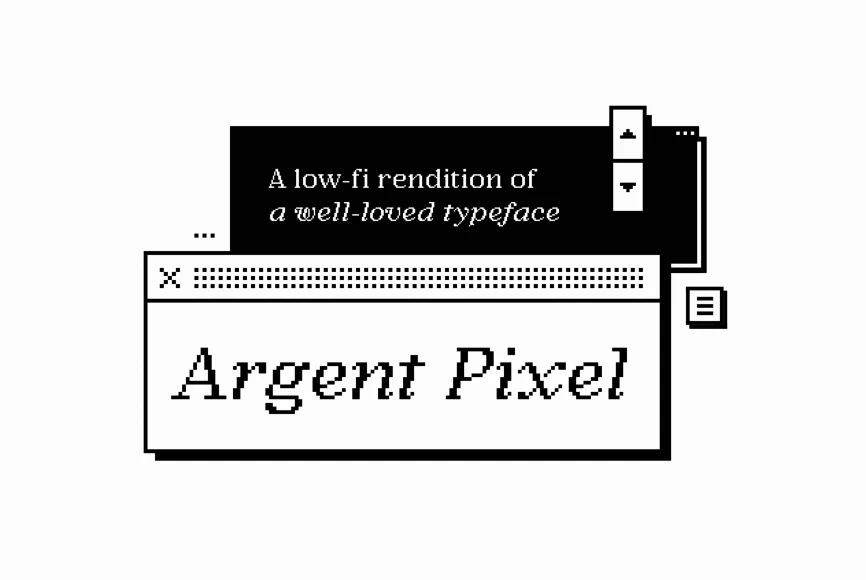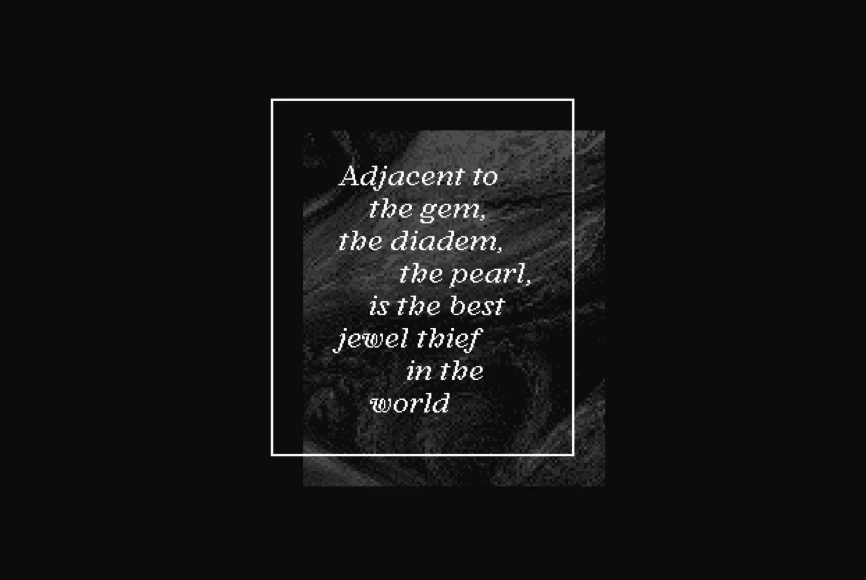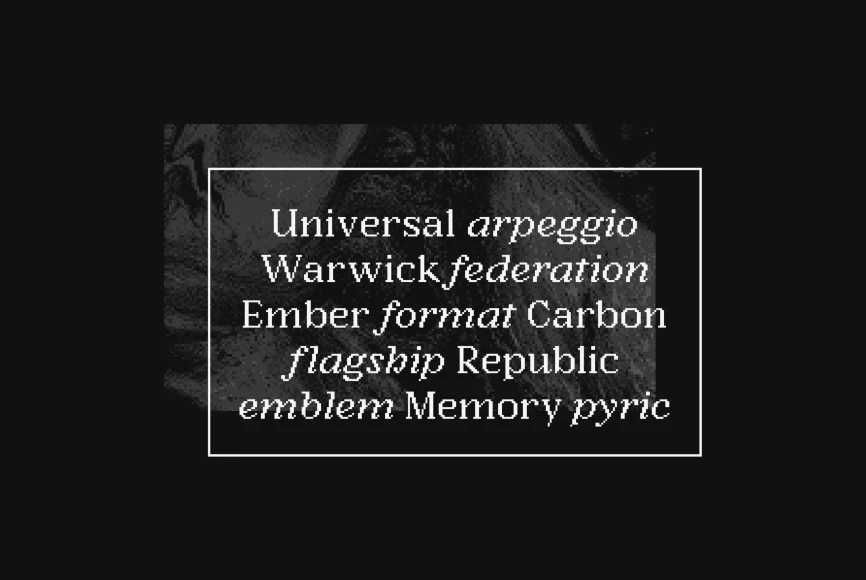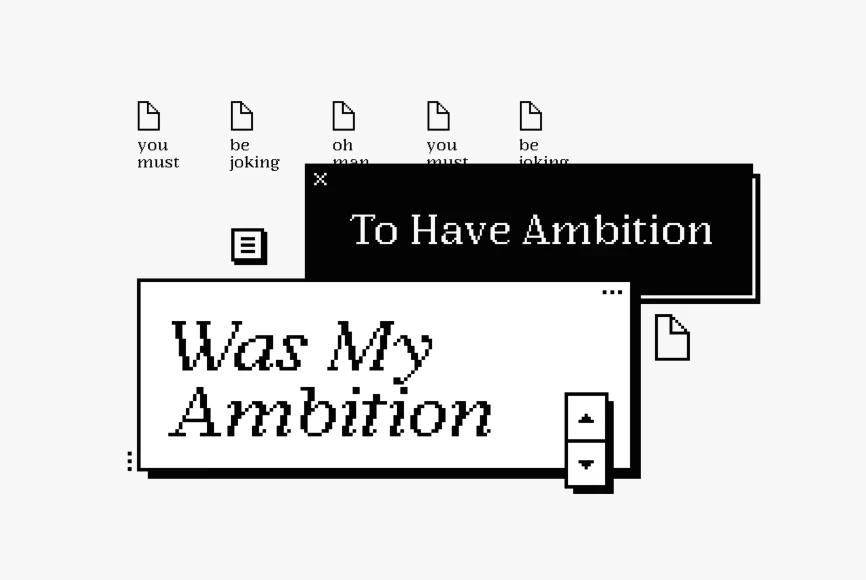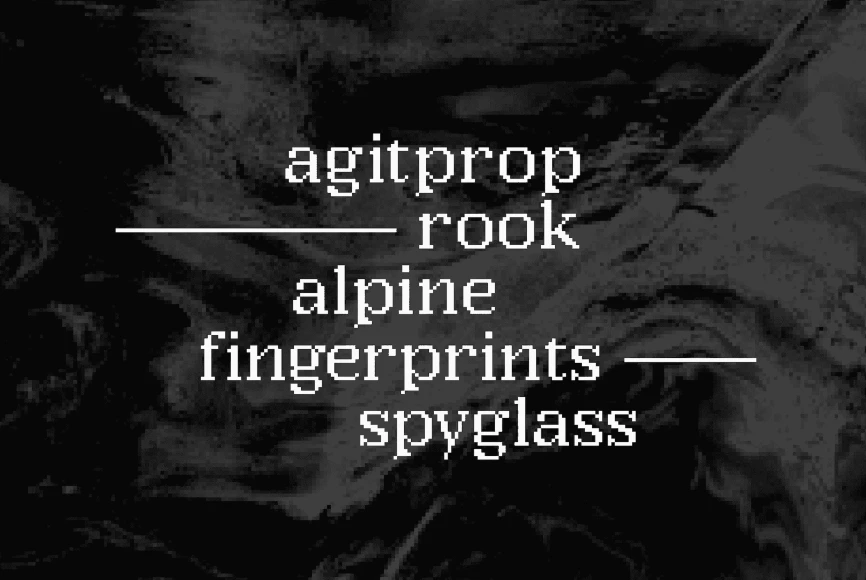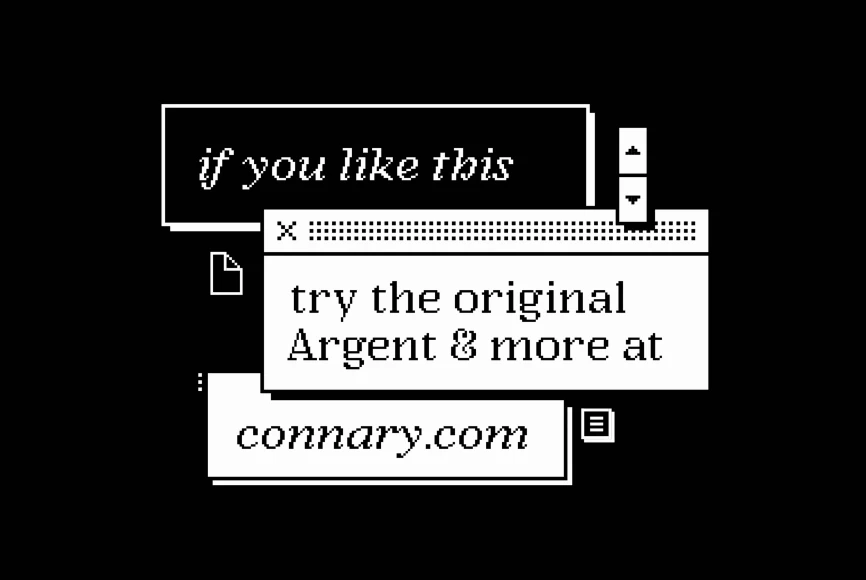
Argent Pixel
Argent Pixel CF is a playful bitmap version of the original dashing Argent typeface. With a pronounced x-height, this unexpectedly readable serif recreates the original font’s distinctive look in a style evocative of early Macintosh typography. It’s readily useful with its angled serifs and swashy italics for all kinds of typographic tasks needing a retro, low-resolution aesthetic, such as identities and brands, advertising, magazines and journals, book covers, packaging and labels, and more.